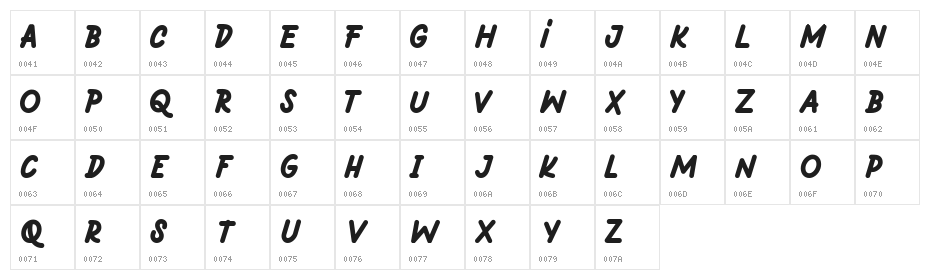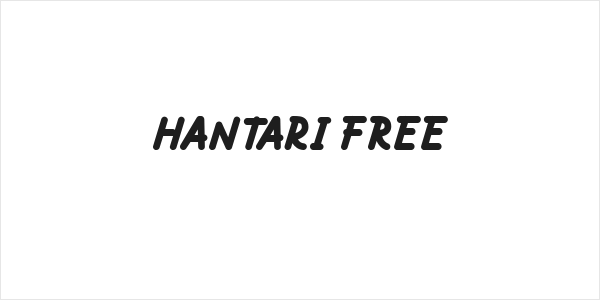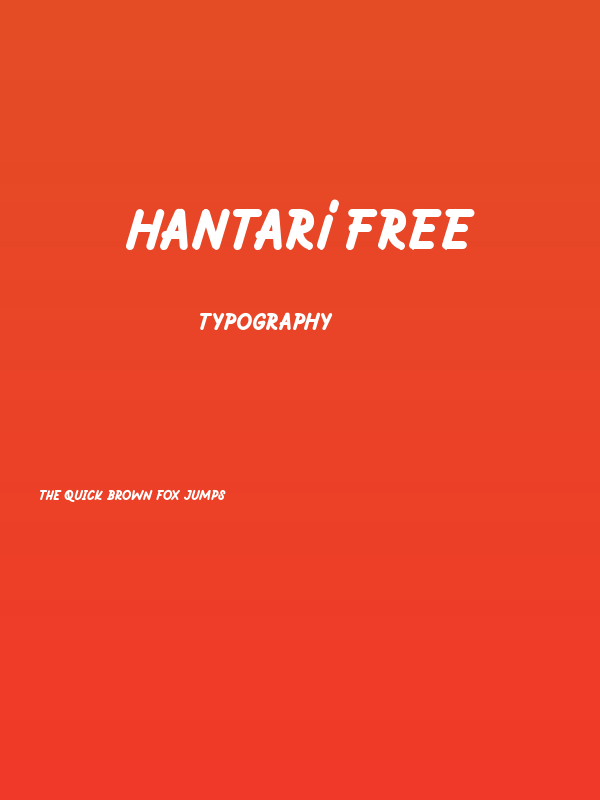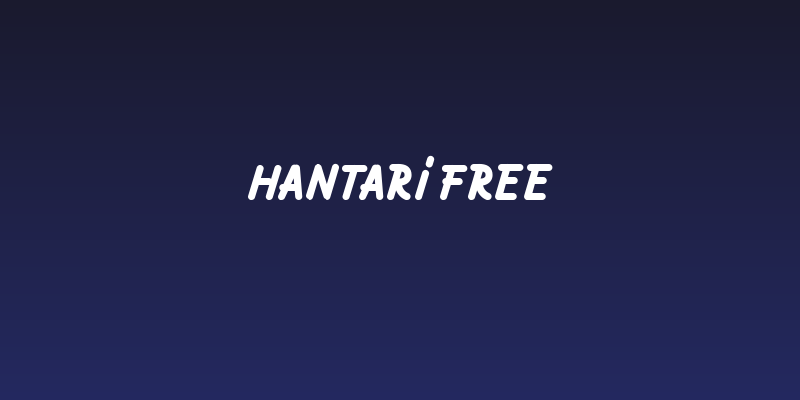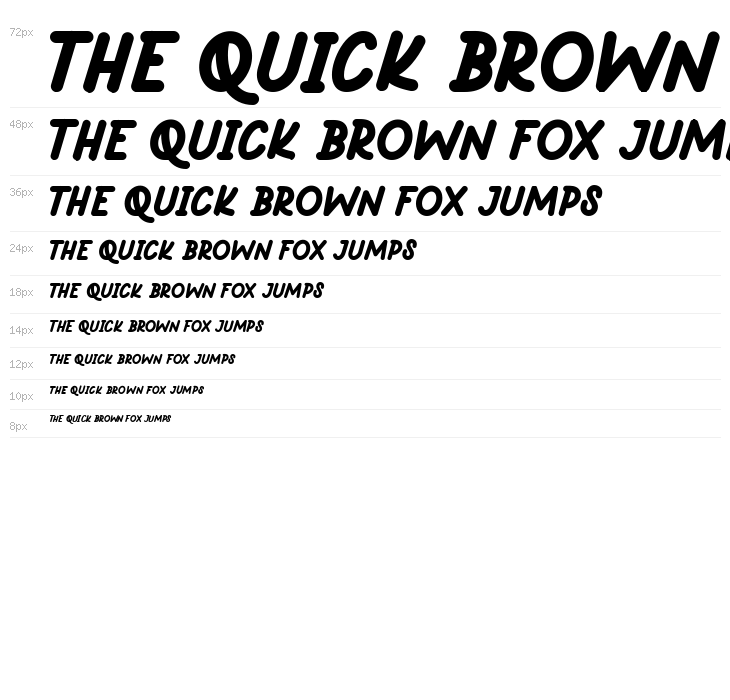
Hantari FREE Font
Hantari FREE Description
This font features a bold and dynamic script style with a playful and energetic feel. The characters are slightly slanted, giving a sense of movement and fluidity. The strokes are thick and consistent, providing a strong presence on the page. The rounded edges and smooth curves contribute to its friendly and approachable appearance. This font is ideal for projects that require a touch of personality and flair, making it suitable for branding, advertising, and creative designs. Its bold nature ensures readability while maintaining a unique and stylish look.
| Use Case | Logos, headlines, posters |
| Proposed Projects | Branding, advertising, creative designs, posters, and social media graphics. |